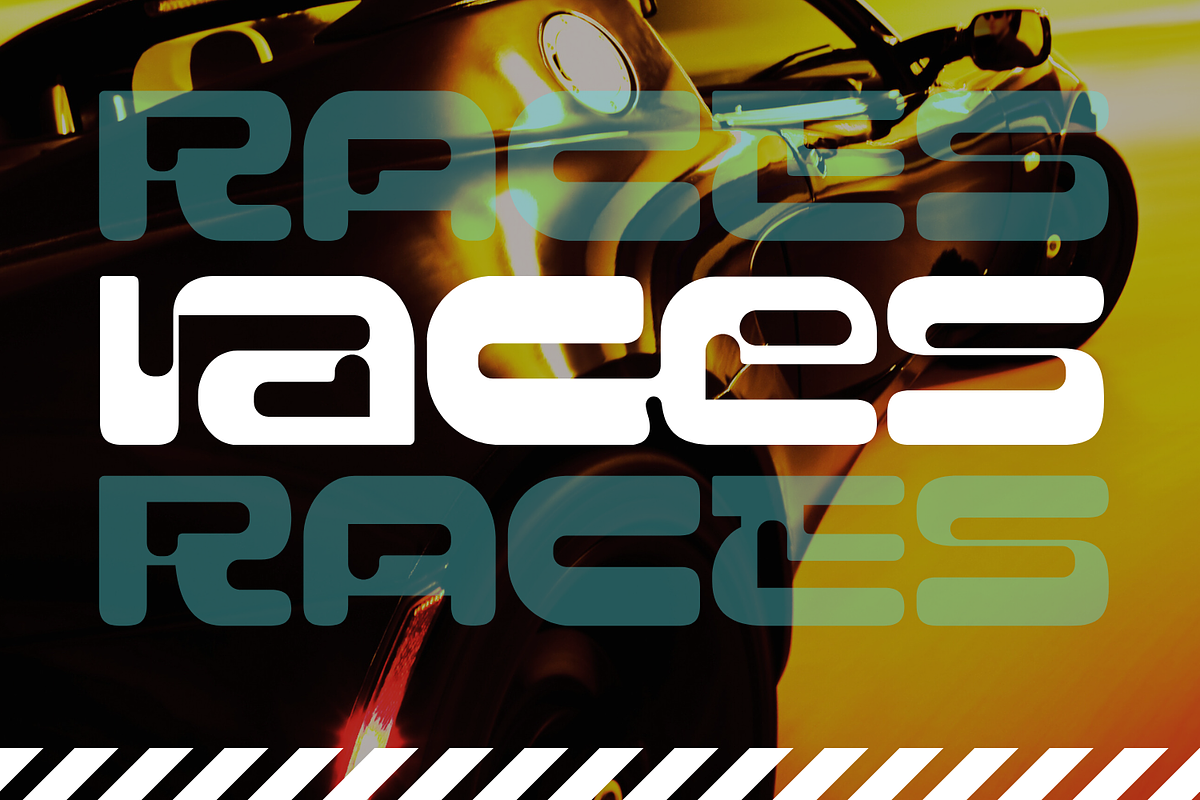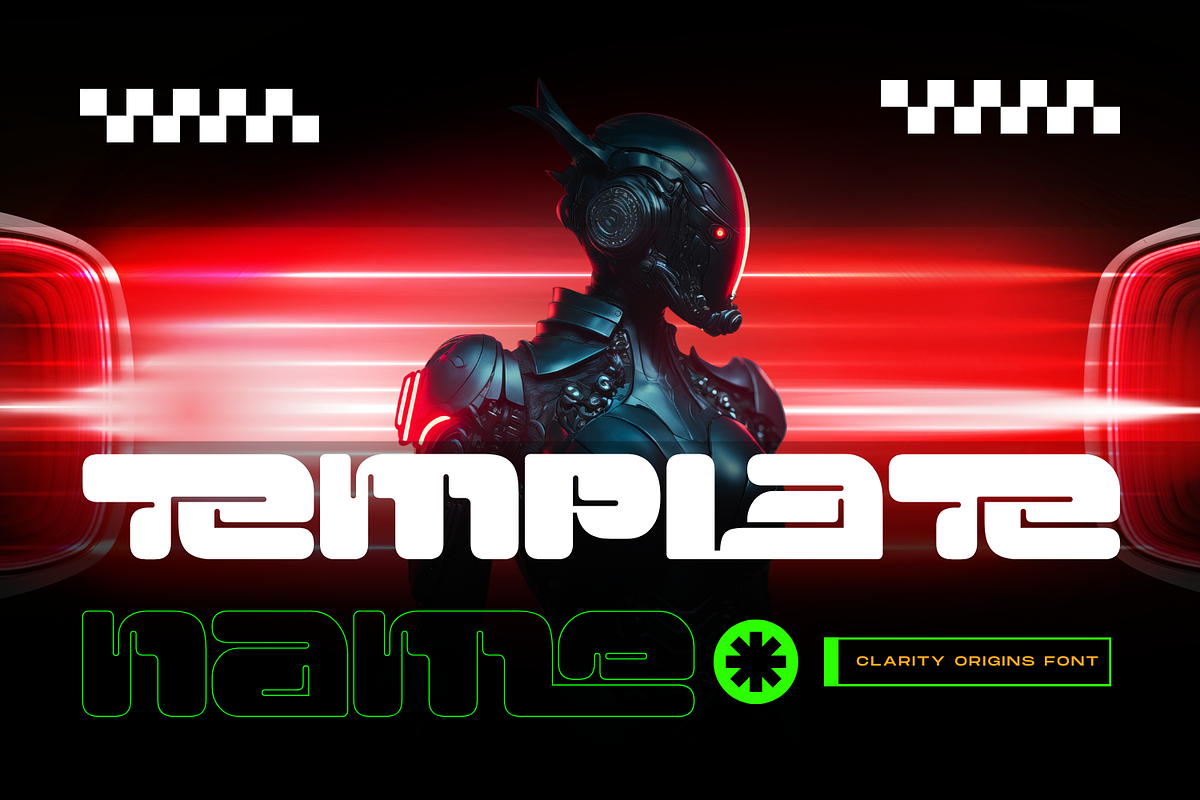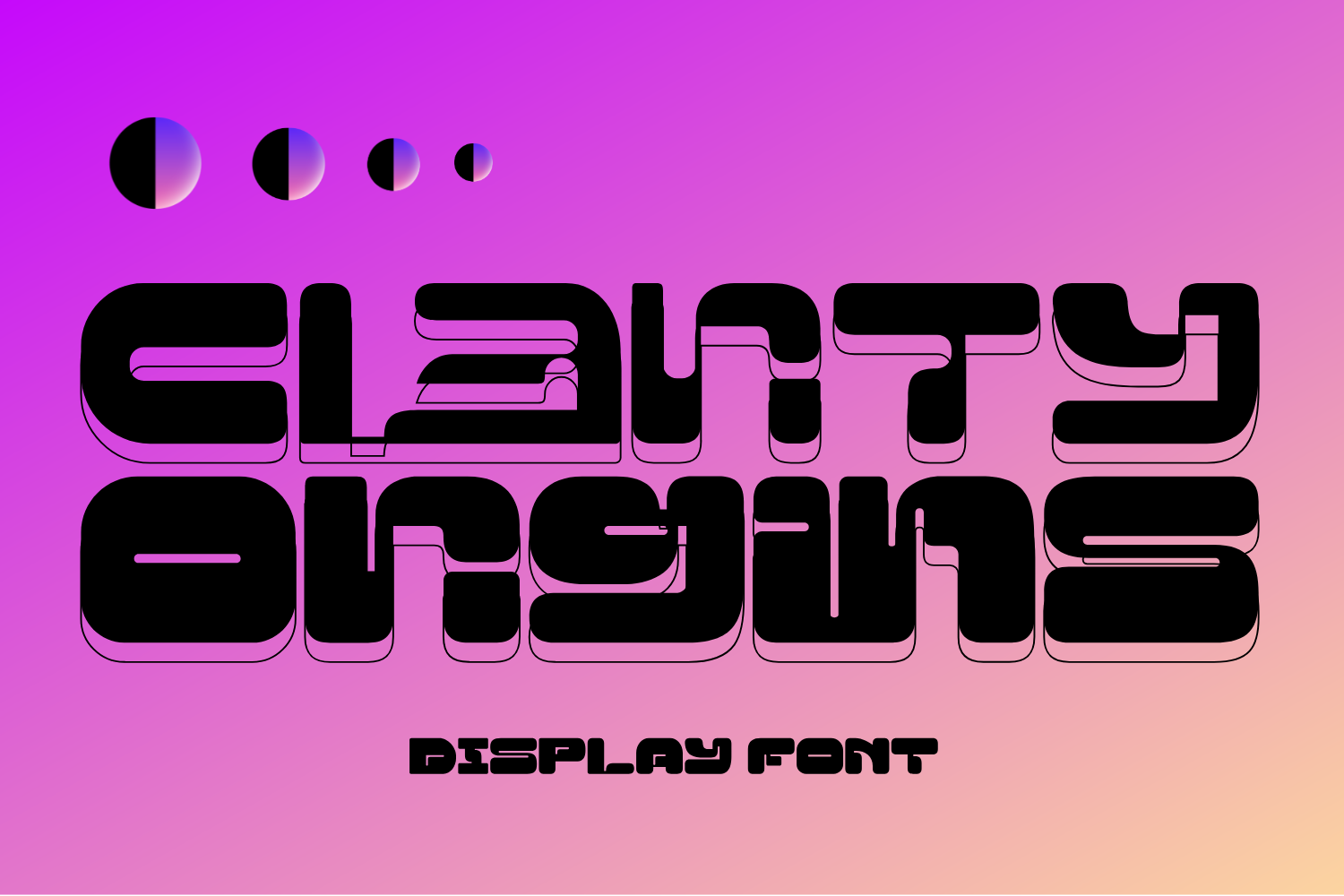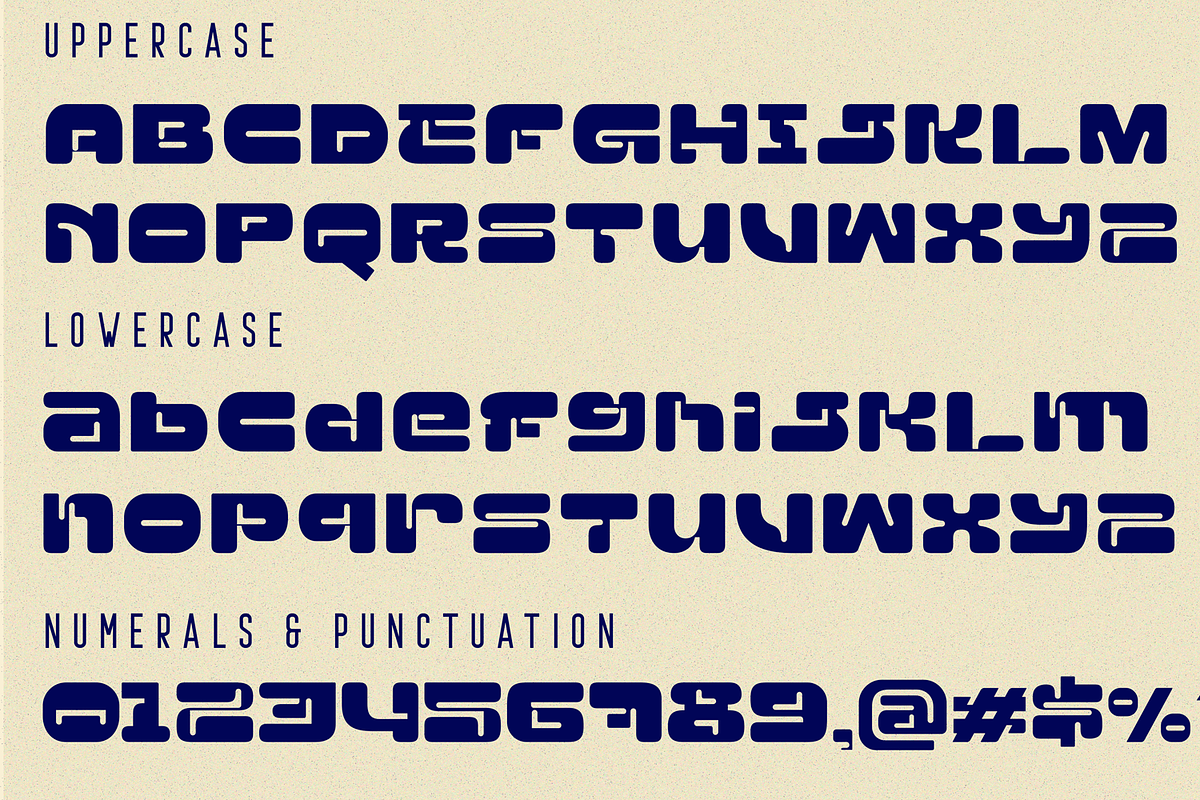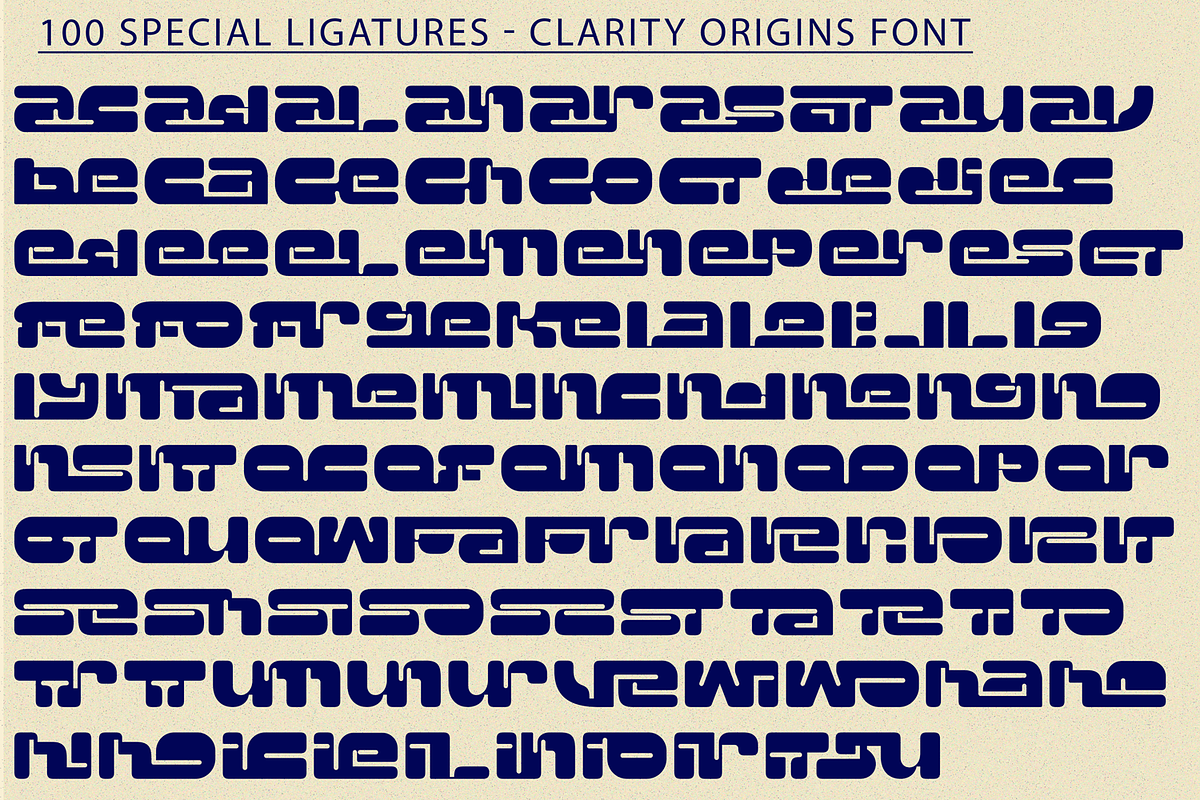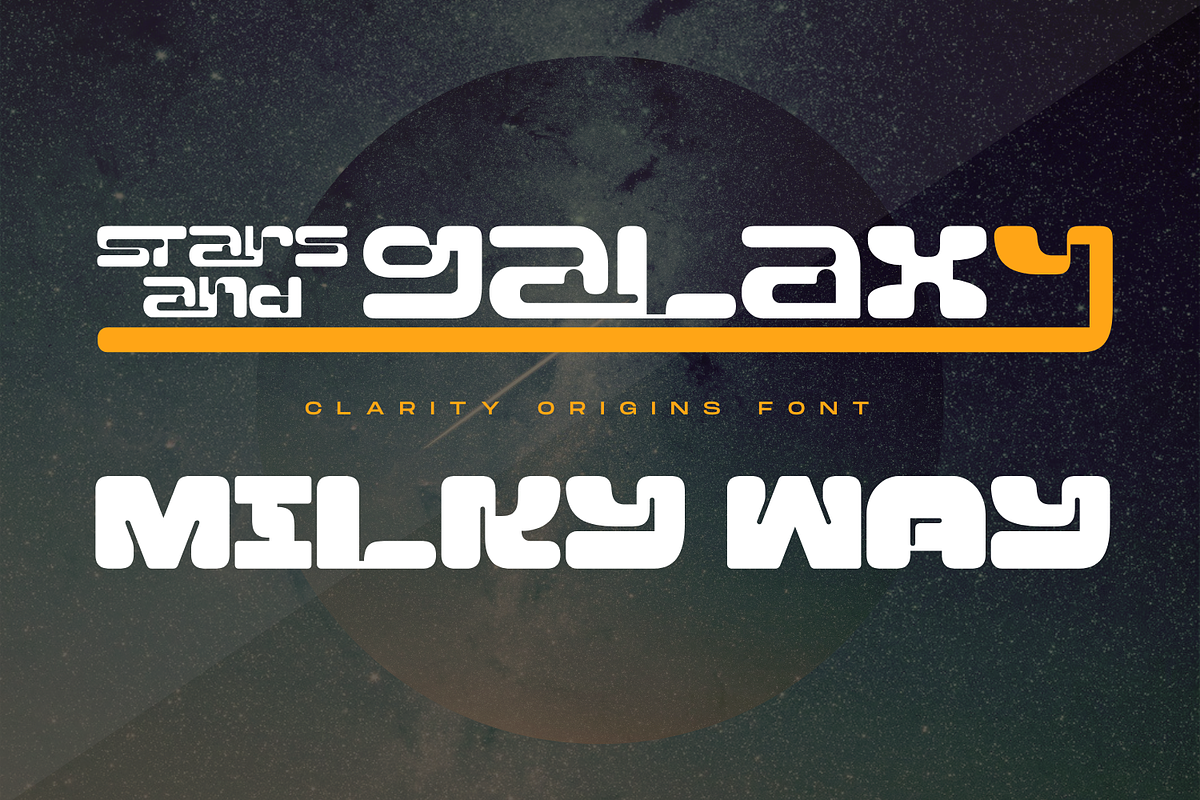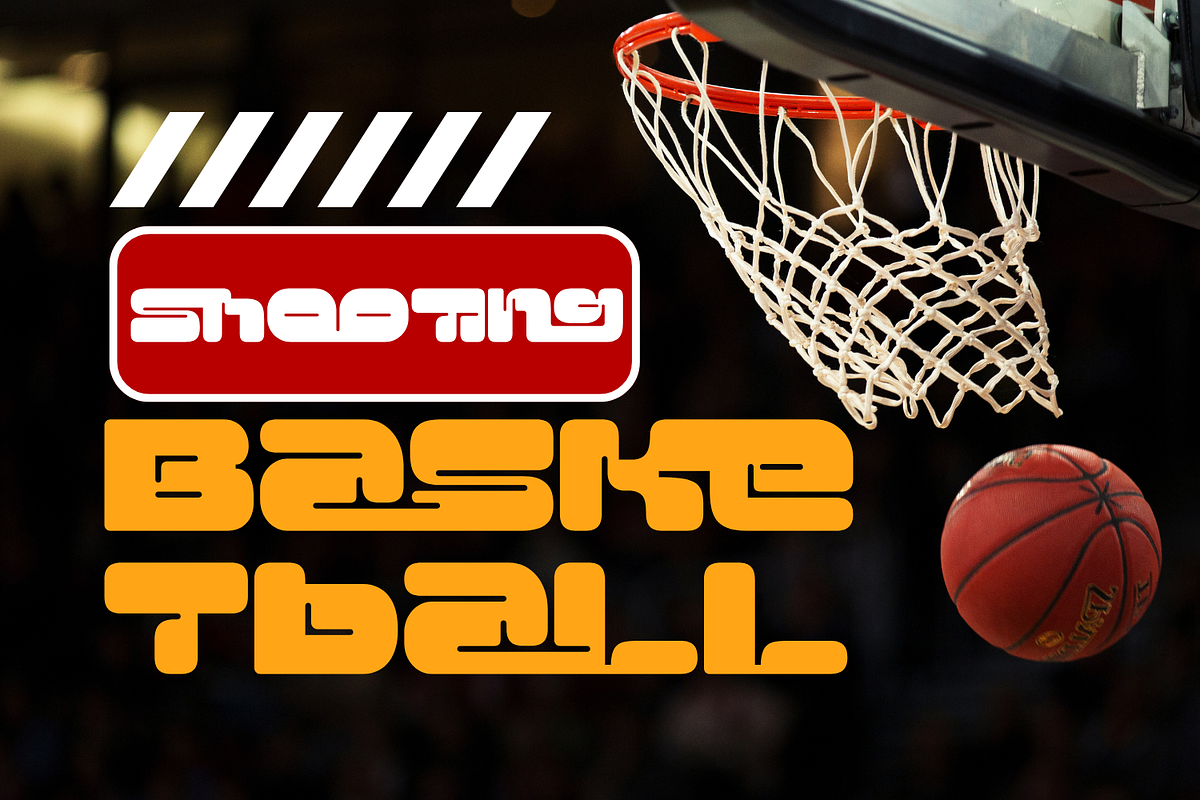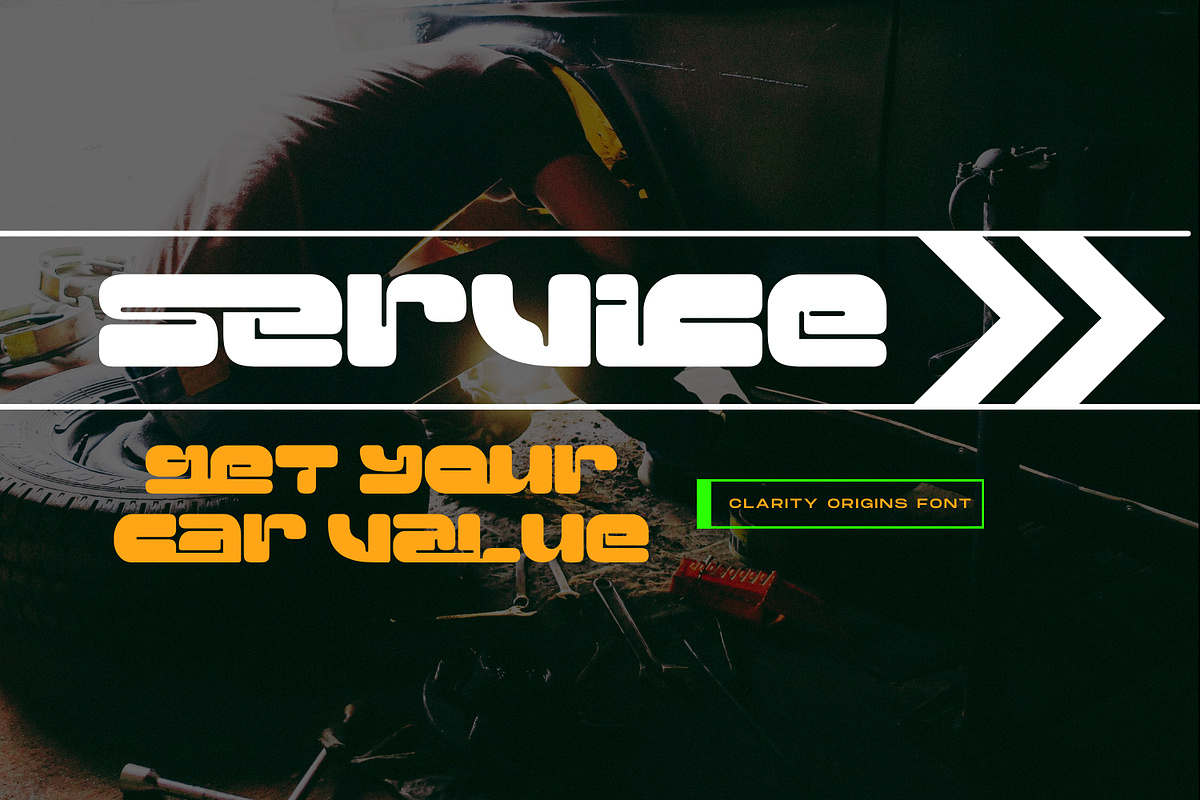
Clarity Origins - Futuristic Font
Clarity Origins Font is a futuristic and cutting-edge display font that merges the worlds of technology and design. It's a bold, decorative techno-style font characterized by its strong, futuristic design. The font's geometric and angular elements give it a modern, high-tech feel, making it ideal for projects that require a bold, dynamic aesthetic. Its thick, solid strokes make it highly suitable for titles and headlines, ensuring a powerful visual impact.
Clarity Origins was built with OpenType features and includes 100 ligatures, alternate, numbers, punctuation, and it also supports other languages.
ac ad al an ar as at au av be ca ce ch co ct de di ea ec ed ee el em en ep er es et fe fo fr ge ha he hi ho ie ic il in io ir is it ju ke la le li ll lo ly ma me mi nc nd ne ng no nt ns oc of om on oo op or ot ou ow pa pr ra rd re ri ro rs rt se sh si so ss st ta te th ti to tr tt um un ur ve wi wo
- Special Ligatures